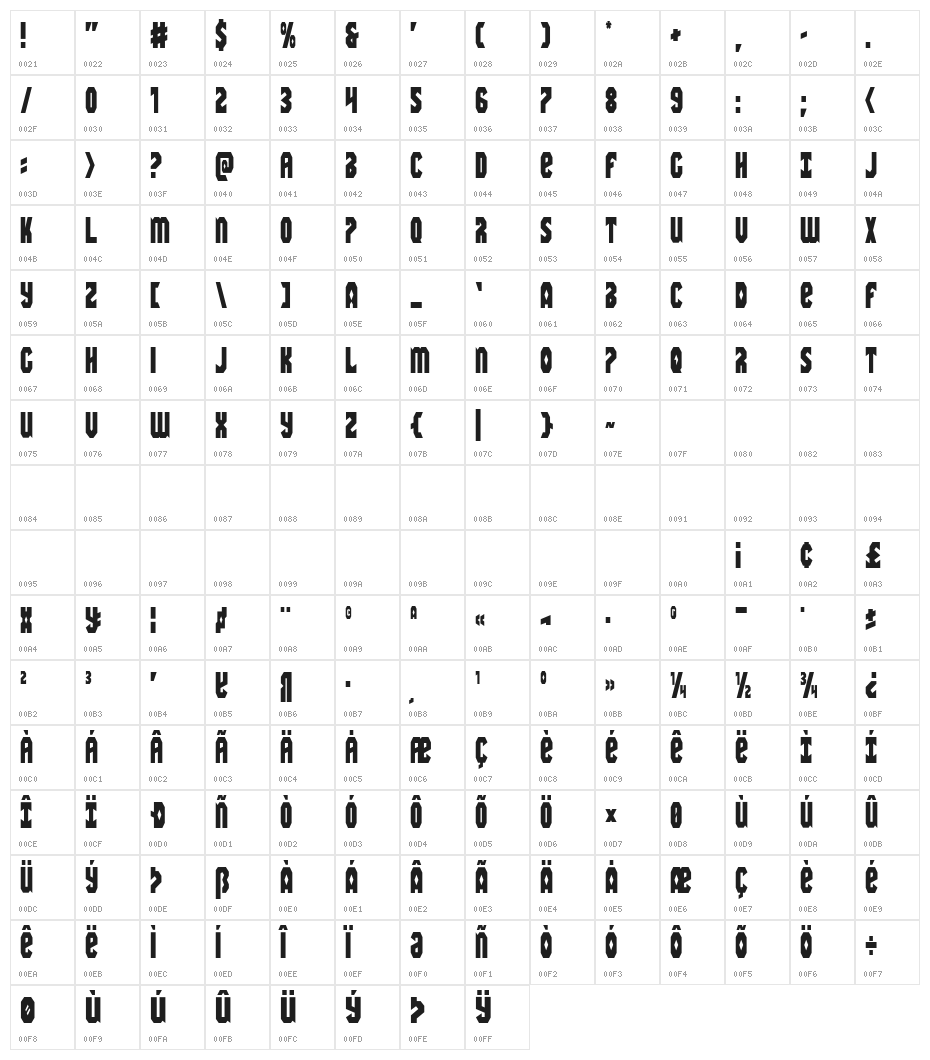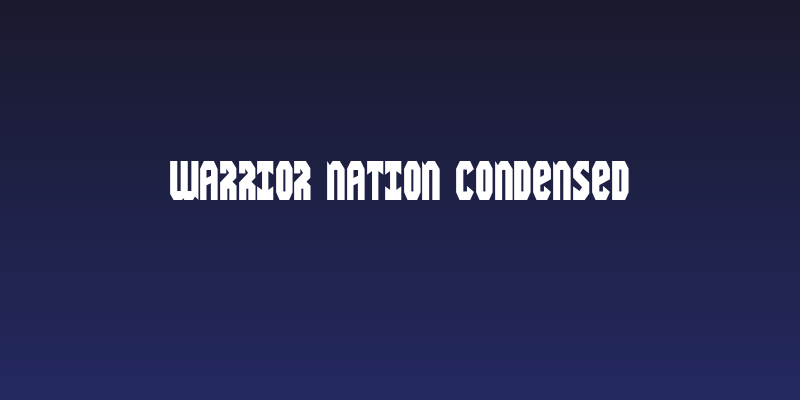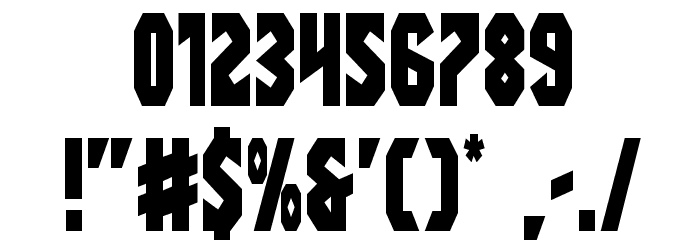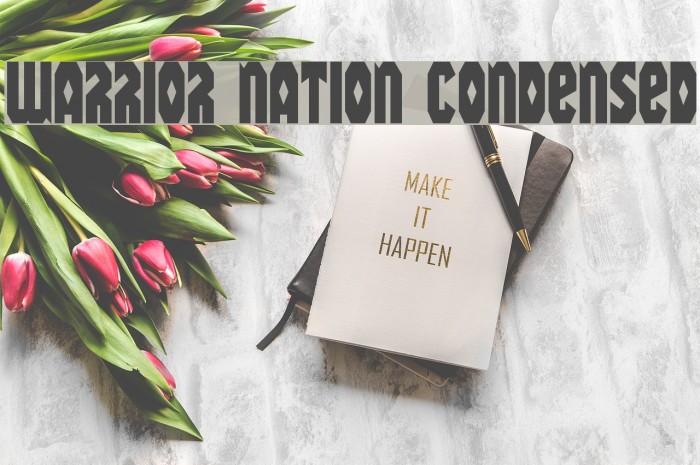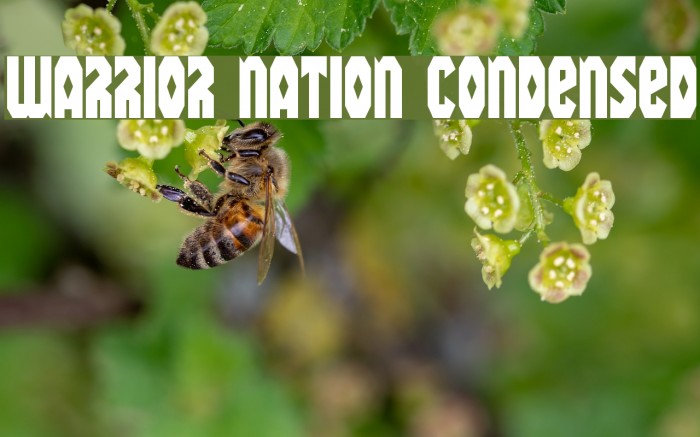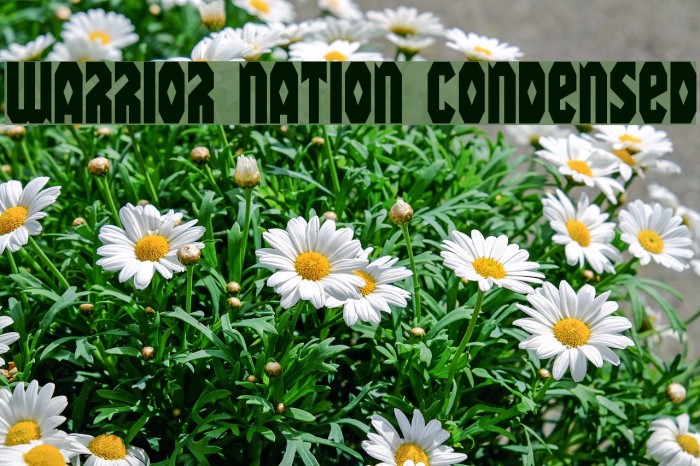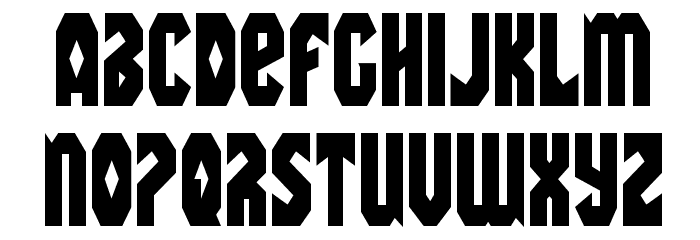
Warrior Nation Condensed Font
Warrior Nation Condensed Description
This font features a bold, geometric design with sharp angles and a condensed structure. The characters are blocky and robust, giving a strong and commanding presence. The uppercase and lowercase letters maintain a consistent style, with the uppercase being particularly striking due to its size and weight. The numerals and special characters follow the same bold and angular theme, ensuring uniformity across all glyphs. This font is ideal for making a bold statement, with its high-impact design and strong visual appeal.
| Proposed Projects | Ideal for posters, sports branding, video game titles, and any project requiring a strong, impactful typeface. |